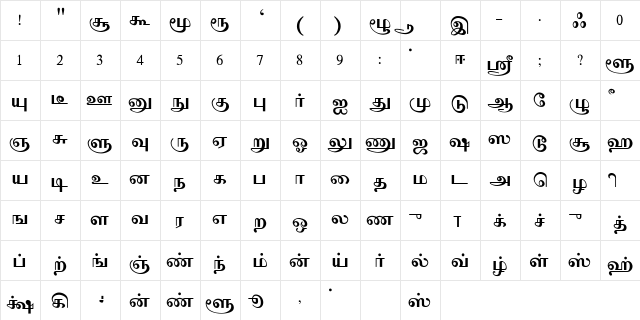
Divya Regular
Design Context for Divya Typeface
Divya offers clean, dependable letterforms without strong stylistic allegiance, making it a practical choice for designers who need flexibility.